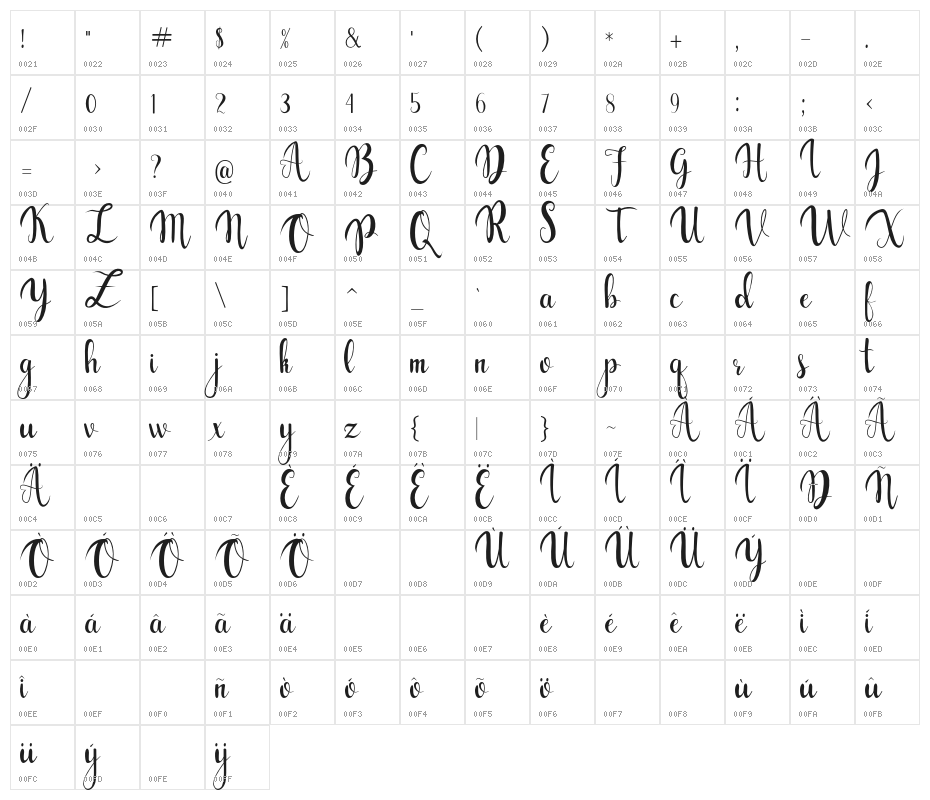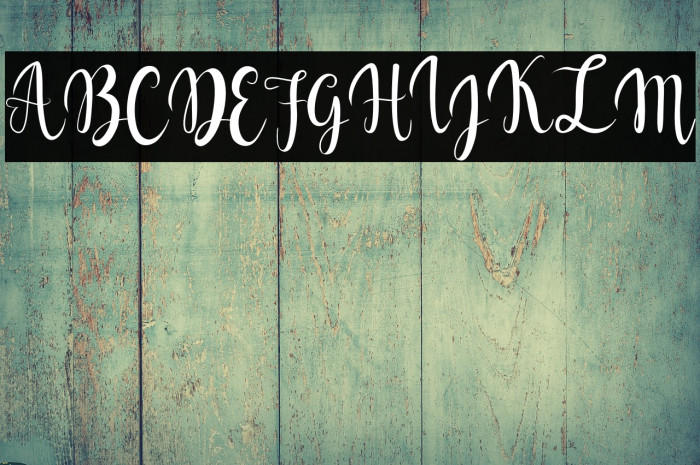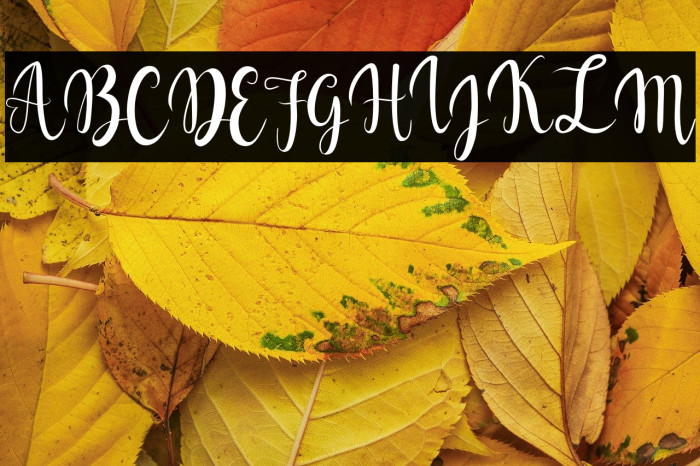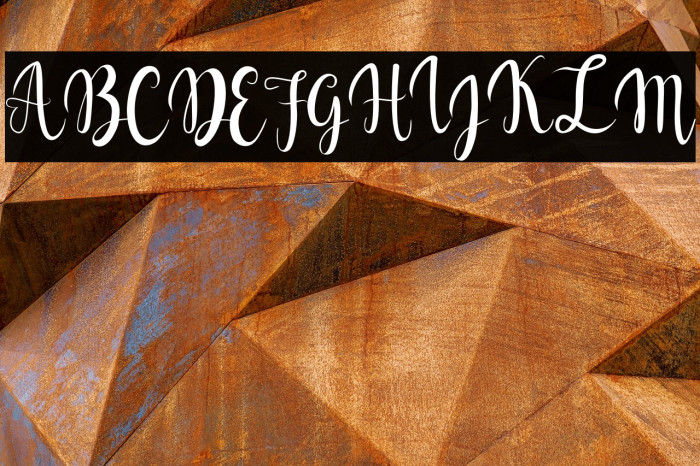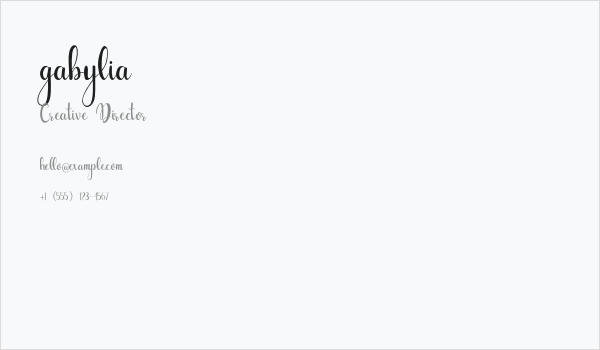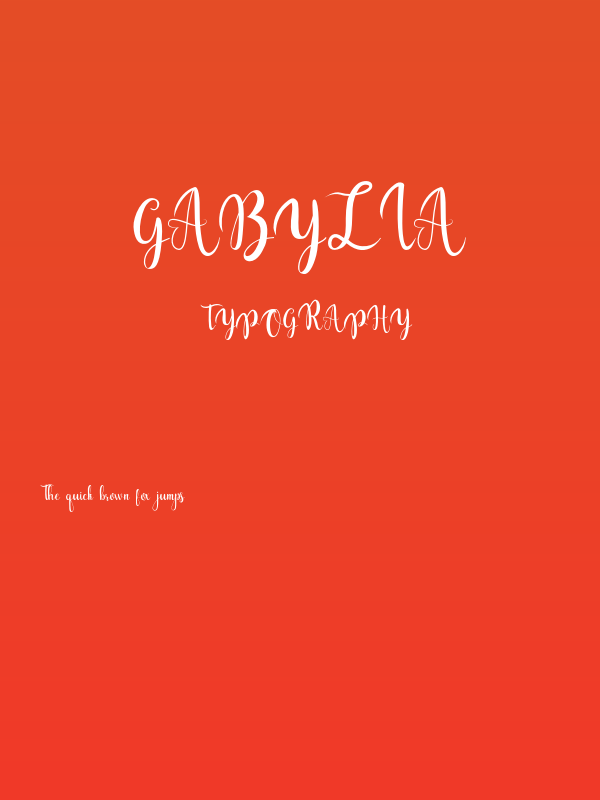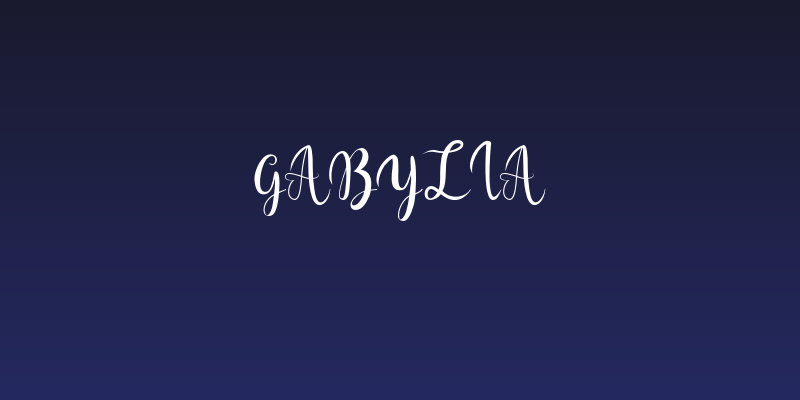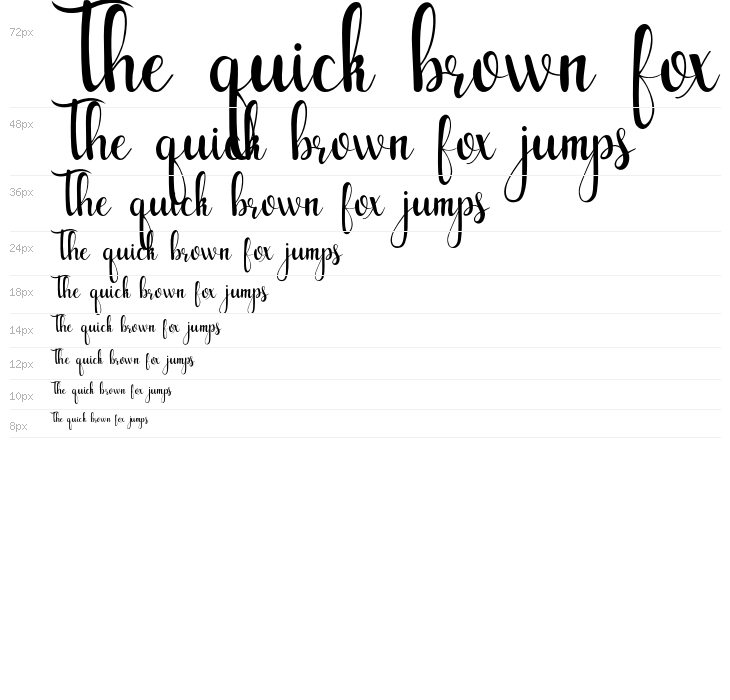
gabylia Font
gabylia Description
This font features an elegant and flowing script style, characterized by its smooth, cursive strokes and graceful curves. The uppercase letters are particularly ornate, with intricate loops and swashes that give a sense of sophistication and fluidity. The lowercase letters maintain a consistent style, with some characters extending below the baseline, adding to the font's dynamic appearance. The numerals are clear and legible, complementing the overall aesthetic. Special characters are designed to match the script's elegance, making it suitable for decorative purposes.
| Overall Style | Elegant, Decorative |
| Use Case | Headlines, Invitations, Decorative text |
| Proposed Projects | Ideal for wedding invitations, elegant branding, greeting cards, and decorative headlines. |